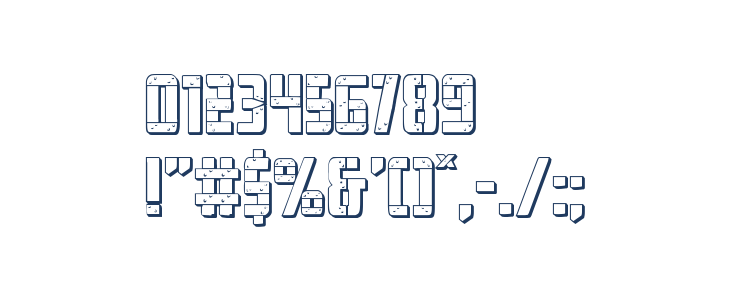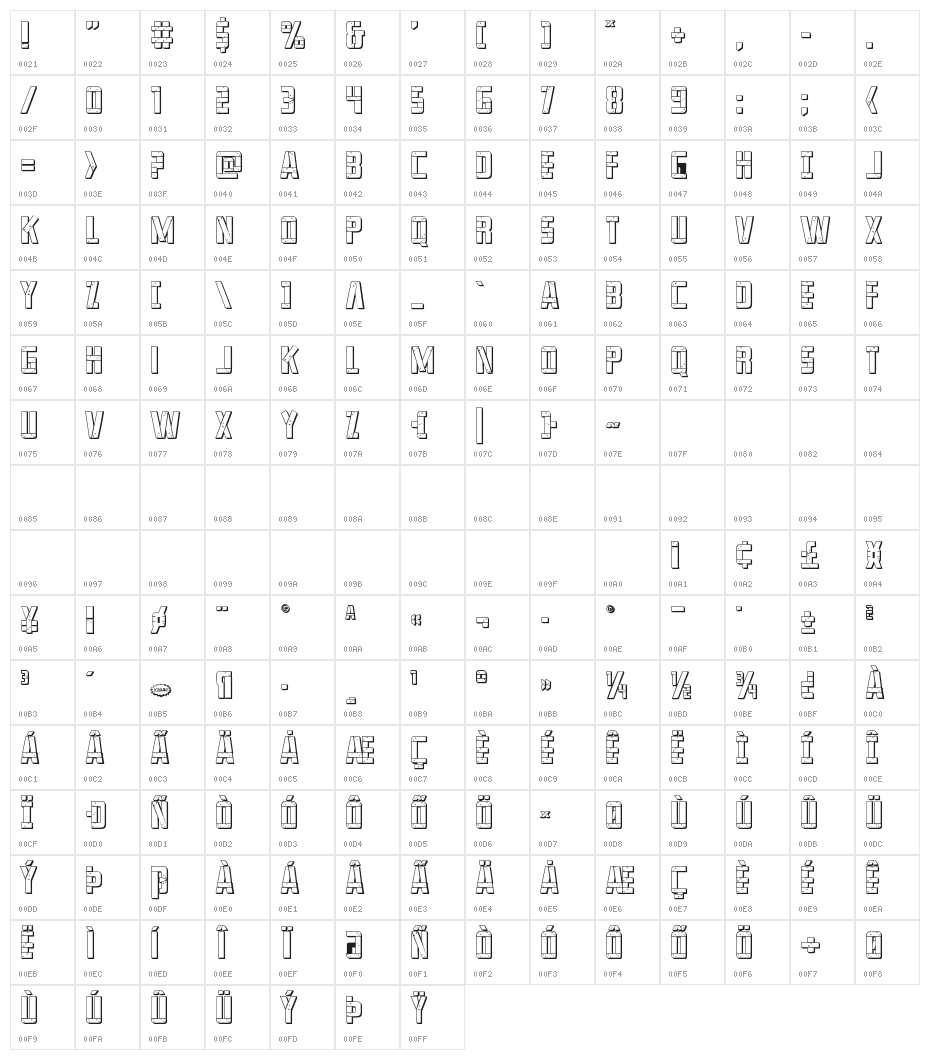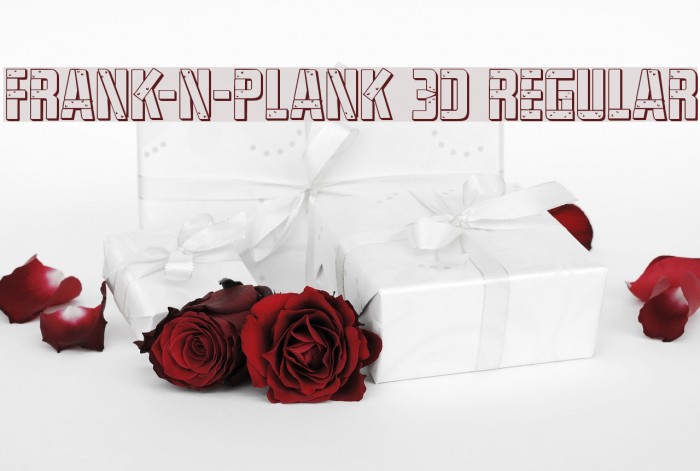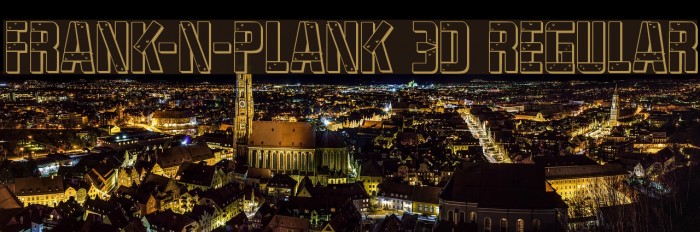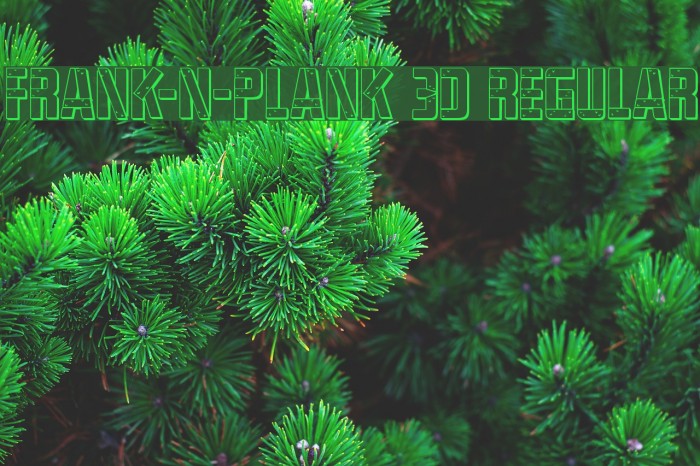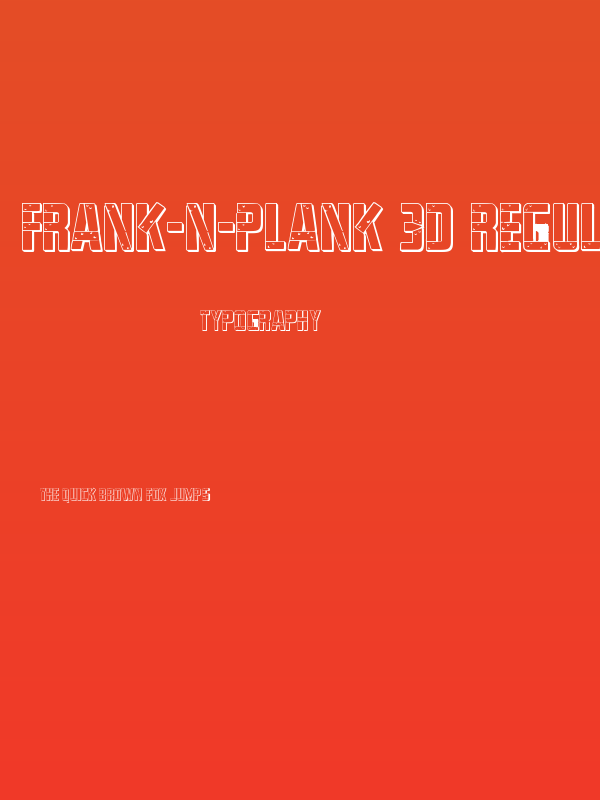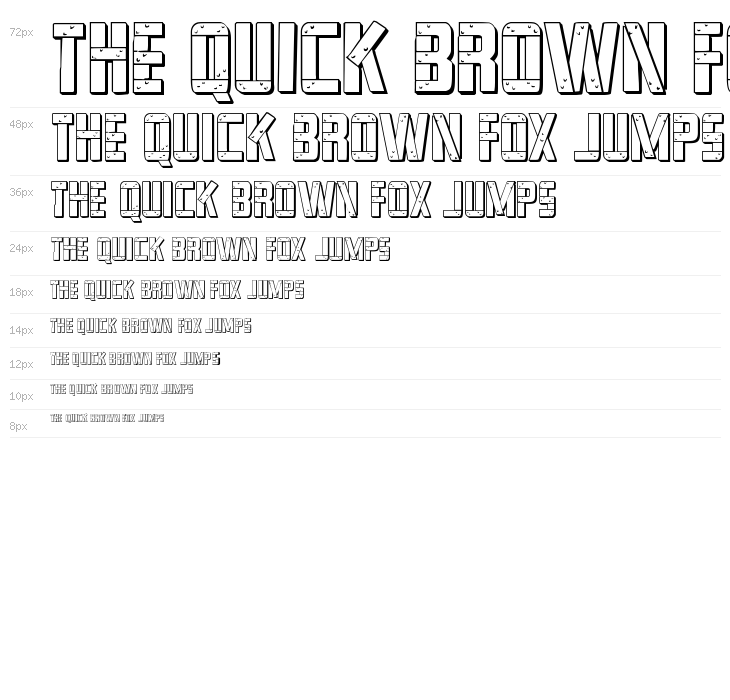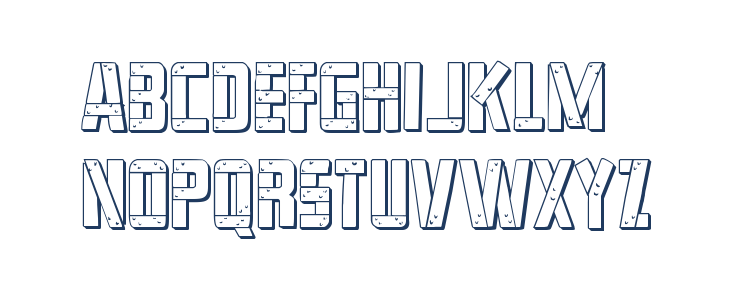
Frank-n-Plank 3D Regular Font
Frank-n-Plank 3D Regular Description
This font features a bold, 3D block style with a playful and rugged appearance. Each character is designed with a thick outline and a textured, plank-like interior, giving it a unique, handcrafted look. The letters are uppercase and maintain a consistent height, with a slight shadow effect that enhances the three-dimensional aspect. The numbers and special characters follow the same design principles, ensuring a cohesive visual style throughout. This font is ideal for projects that require a bold, eye-catching display with a touch of whimsy and creativity.